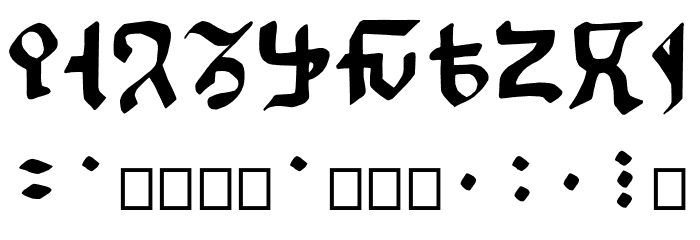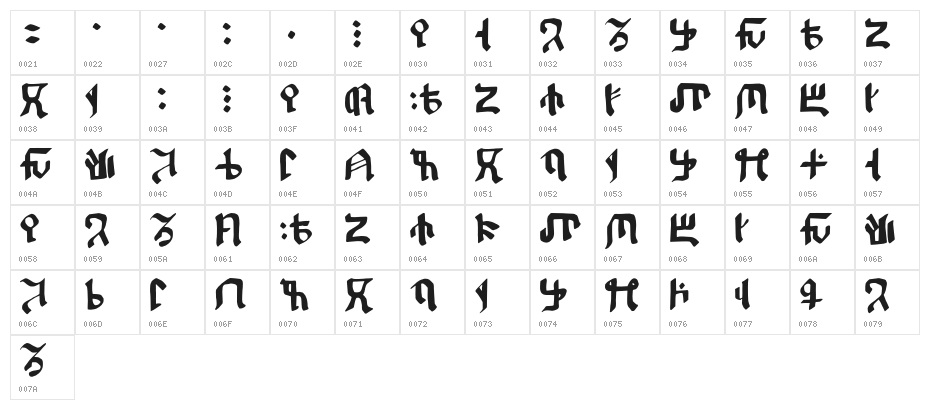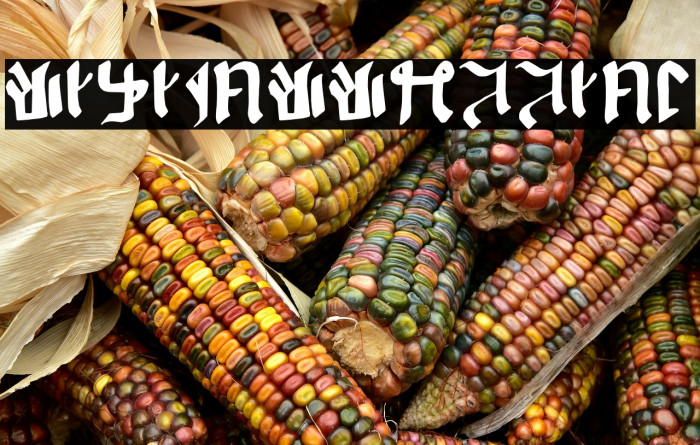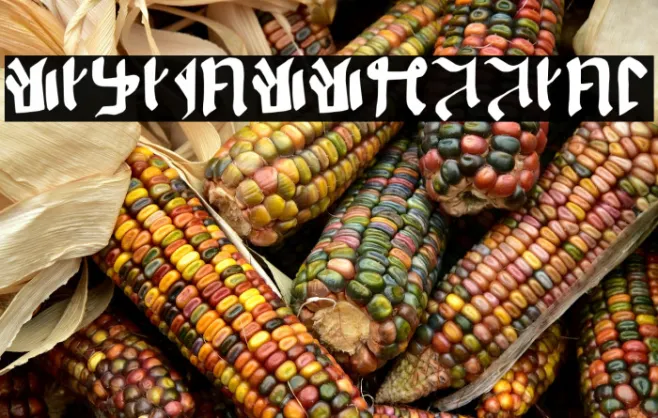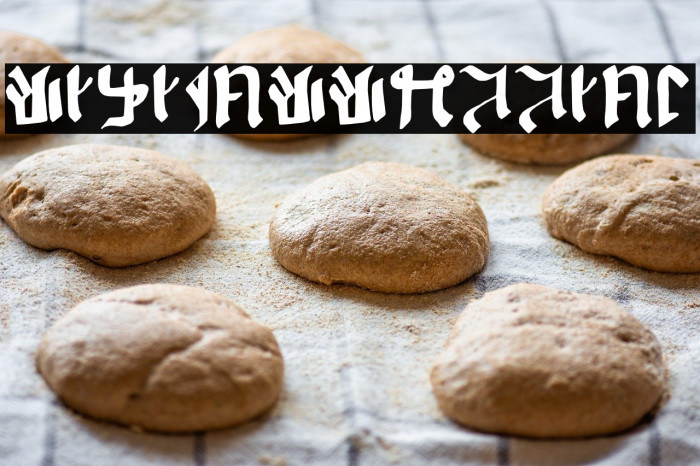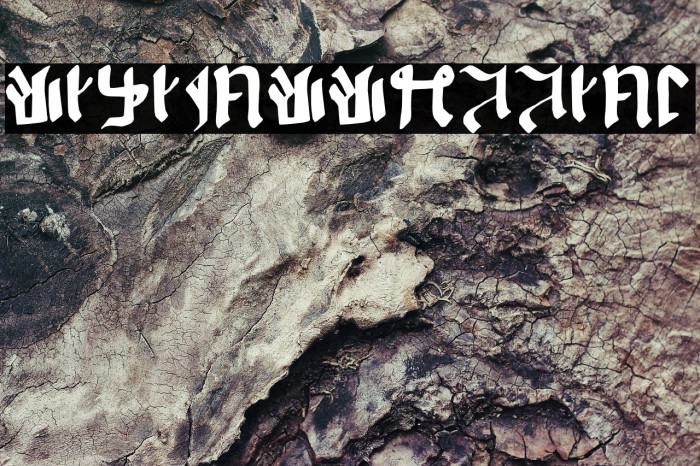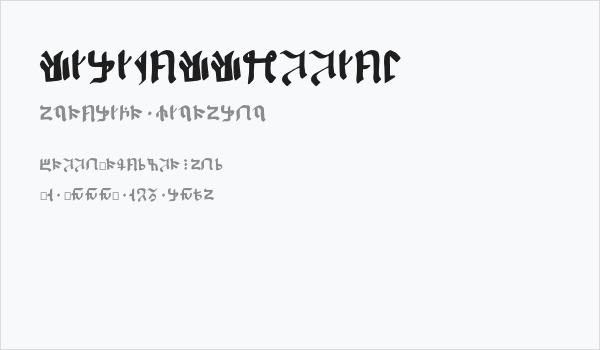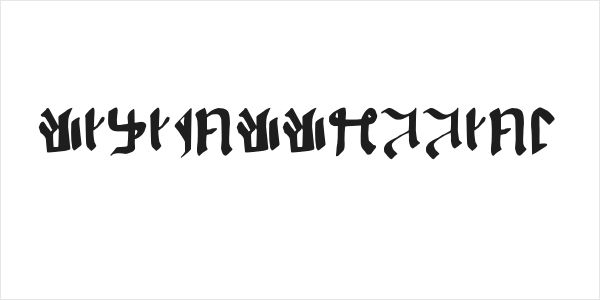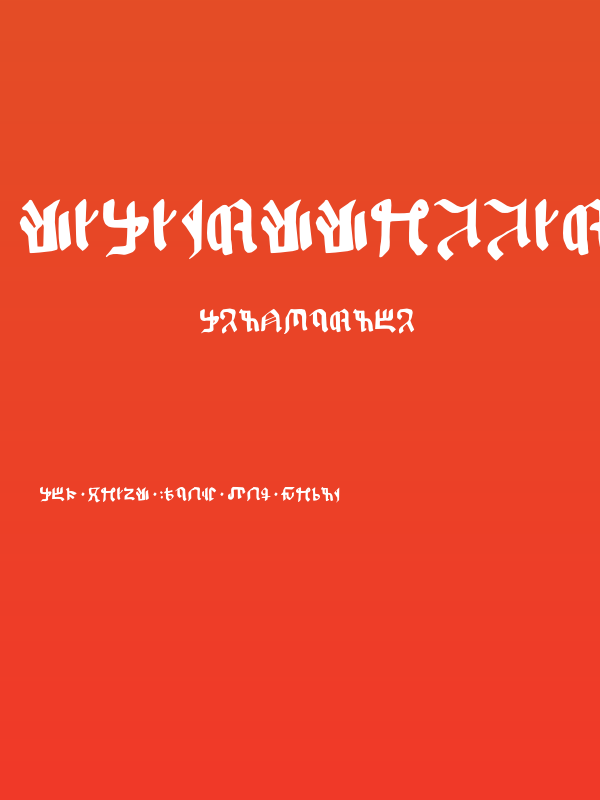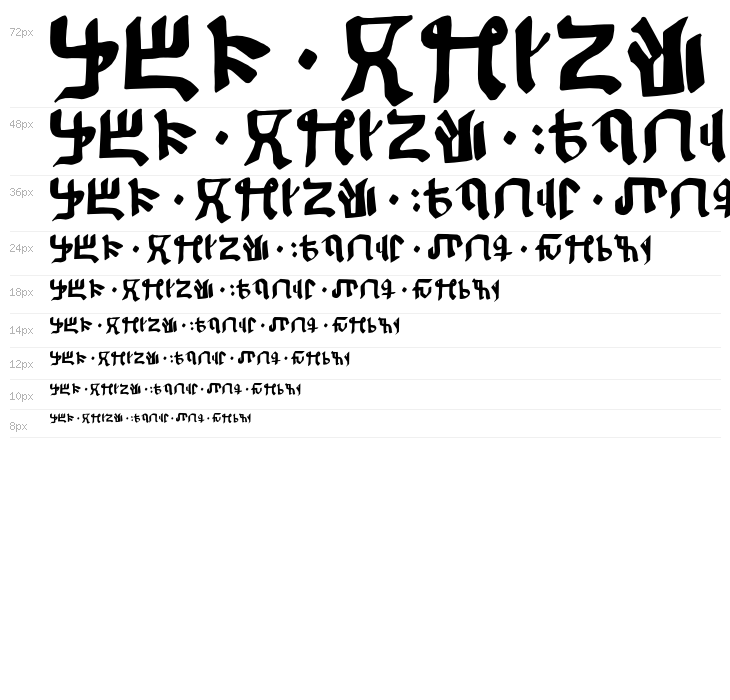
Kitisakkullian Font
Kitisakkullian Description
This font features a unique, angular design with a strong emphasis on geometric shapes and sharp edges. The characters are bold and striking, with a distinct medieval or fantasy-inspired aesthetic. The uppercase and lowercase letters share a consistent style, creating a cohesive look across the alphabet. The numerals and special characters maintain the same bold and angular characteristics, ensuring uniformity throughout. This font is highly decorative, making it suitable for projects that require a dramatic and eye-catching typeface.
| Proposed Projects | Ideal for fantasy-themed designs, game titles, book covers, and posters. |